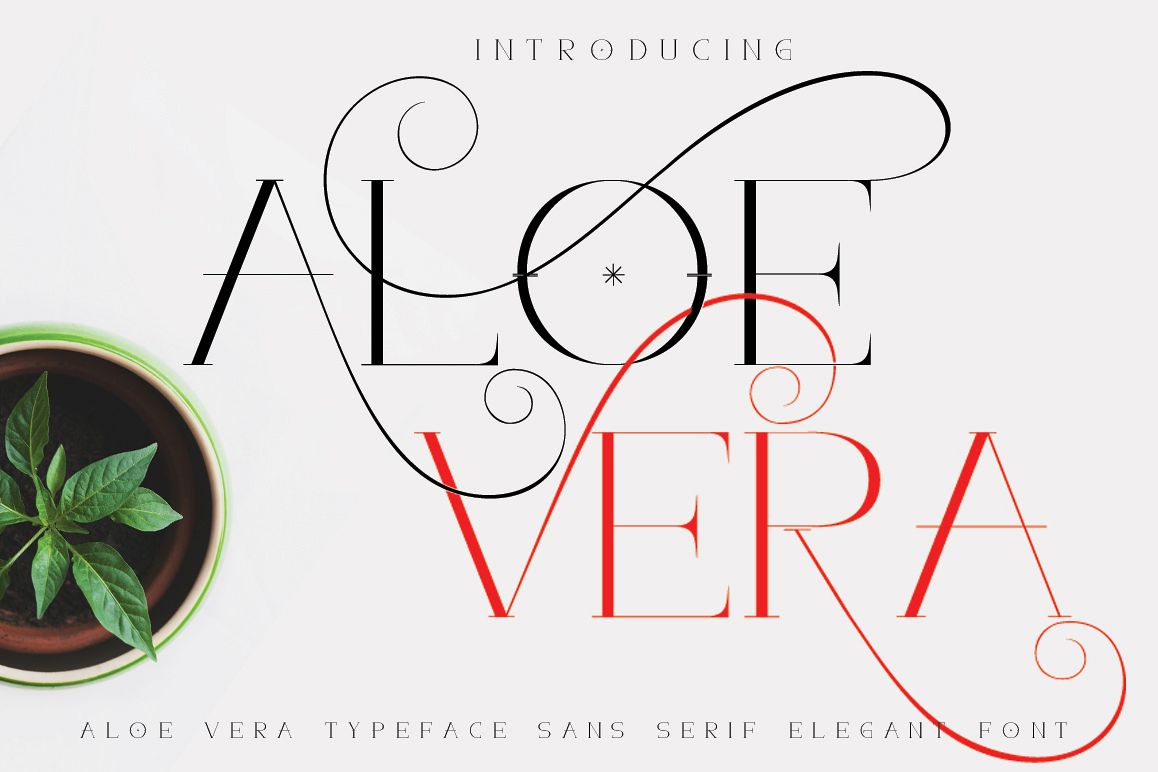
ALOE VERA
Modern combination is a font that combines classic style fonts moderated with a touch of minimalist design
alternate sweet and love
and alternates